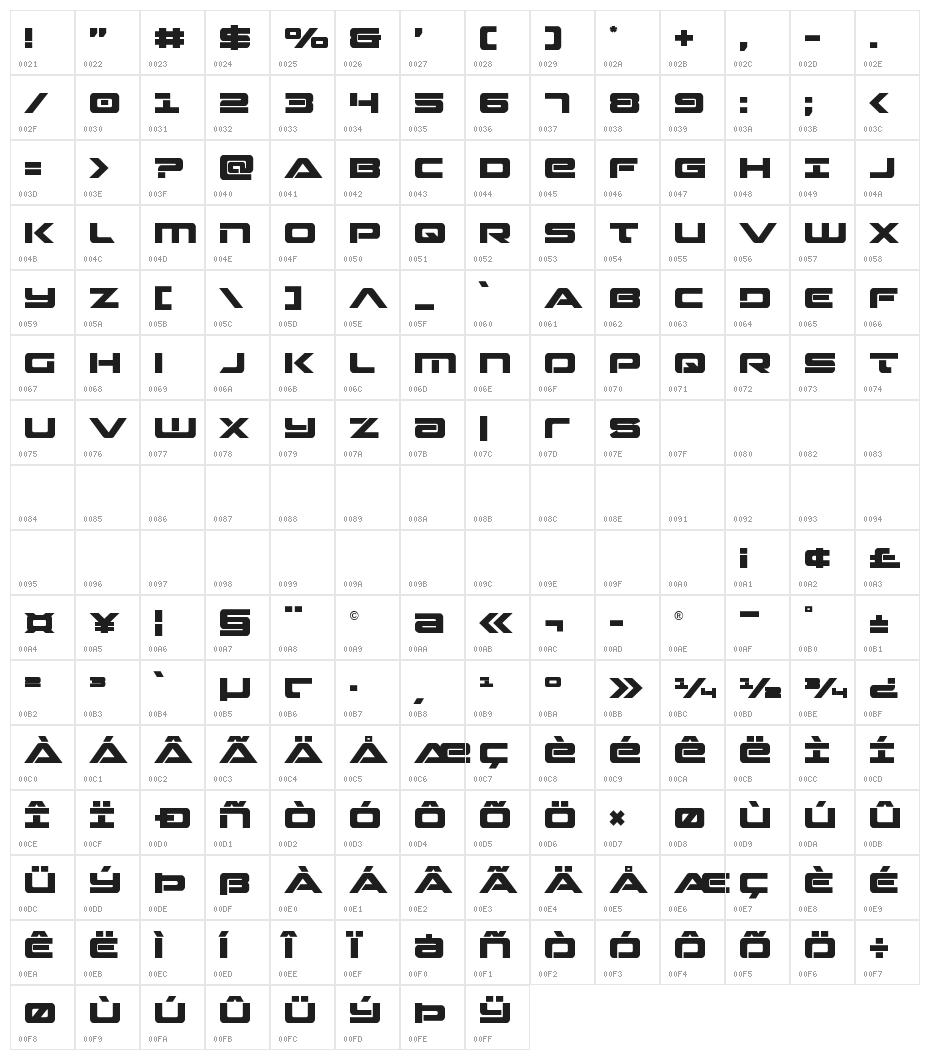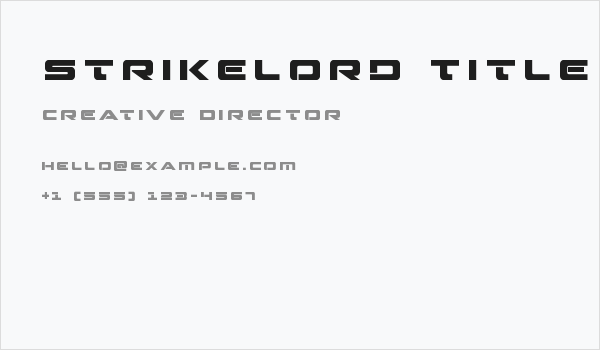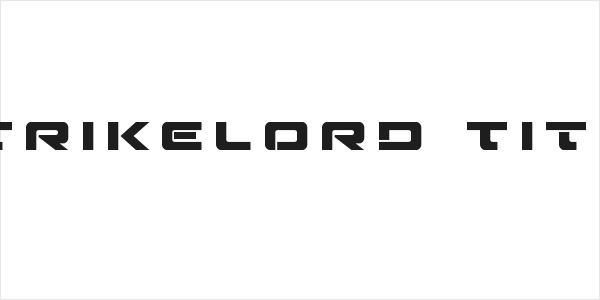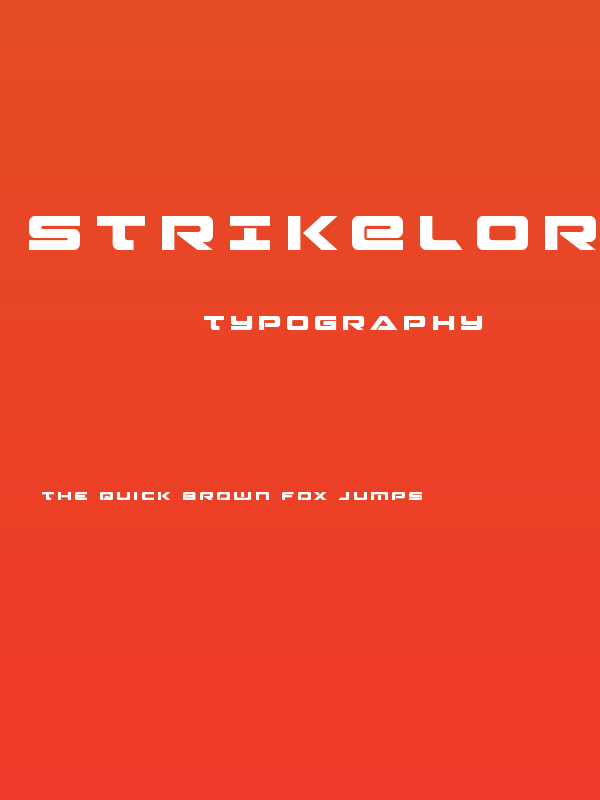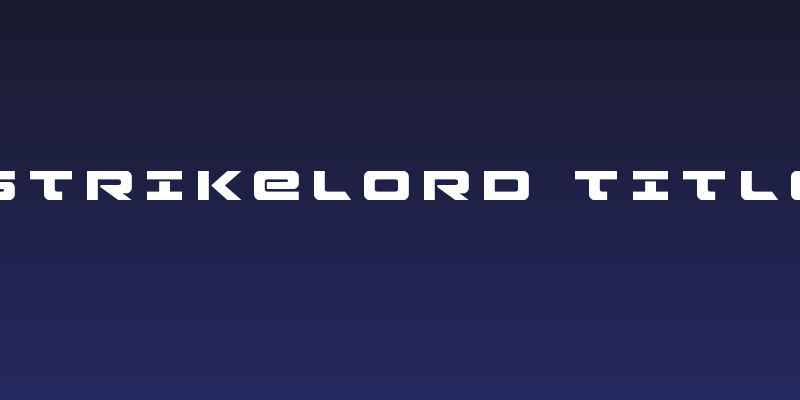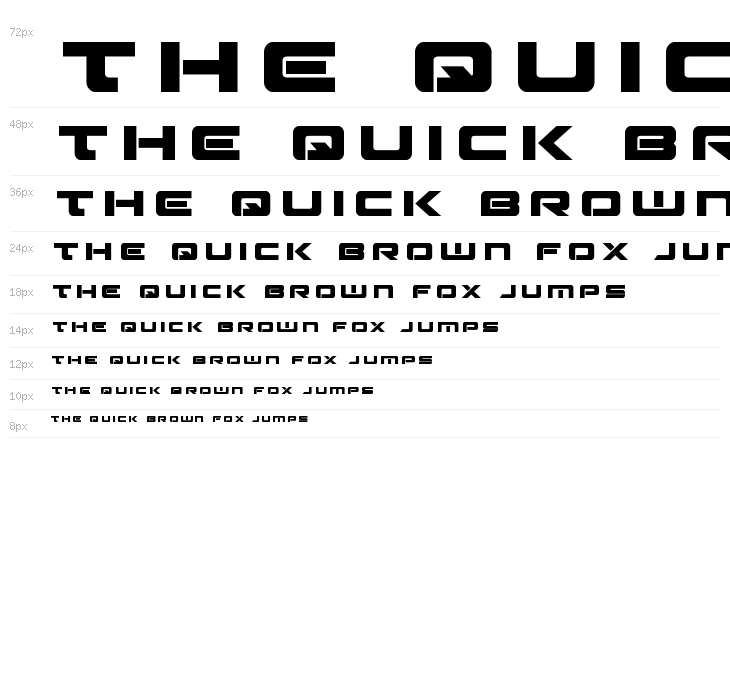
Strikelord Title Font
Strikelord Title Description
This font features a bold, futuristic design with geometric shapes and sharp angles. The characters are uniformly styled with a consistent thickness, creating a cohesive and modern appearance. The uppercase and lowercase letters maintain a strong presence, while the numerals and special characters complement the overall aesthetic. The font's distinct style makes it suitable for projects that require a contemporary and edgy look. Its unique character shapes are ideal for capturing attention and making a statement.
| Proposed Projects | Ideal for sci-fi themed designs, video game titles, tech branding, and modern posters. |